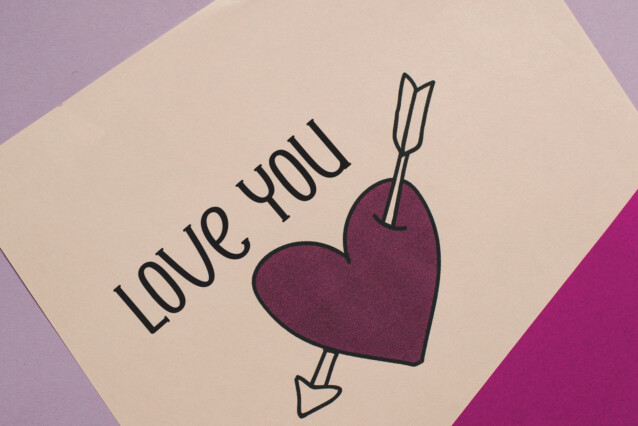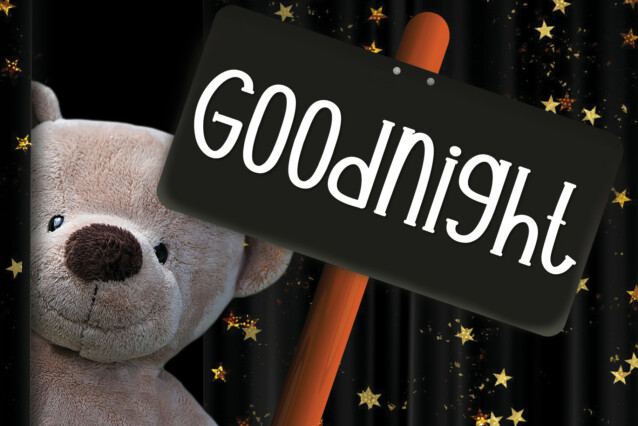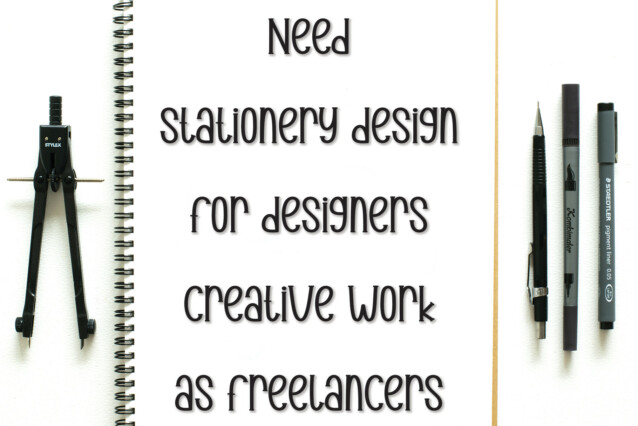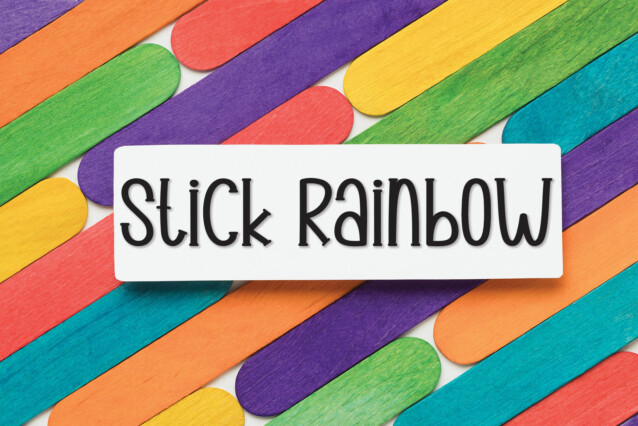
Lemontea Display Font
Lemontea Display Font is a cool and casual handwritten font. Whether you’re using it for crafts, digital design, presentations, or making greeting cards, this font has the potential to become your favorite go-to font, no matter the occasion.